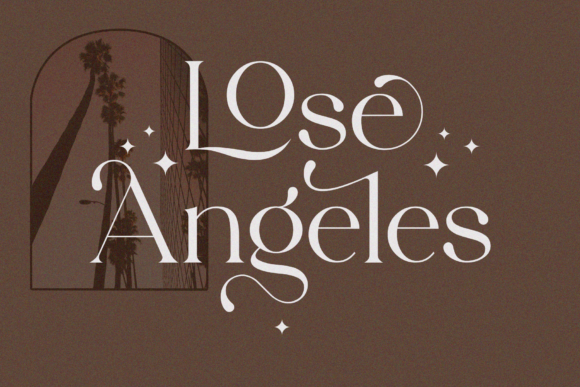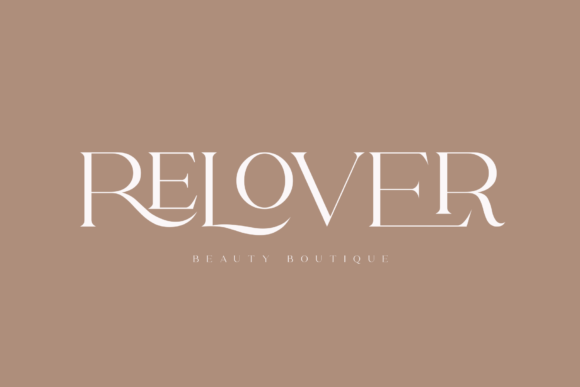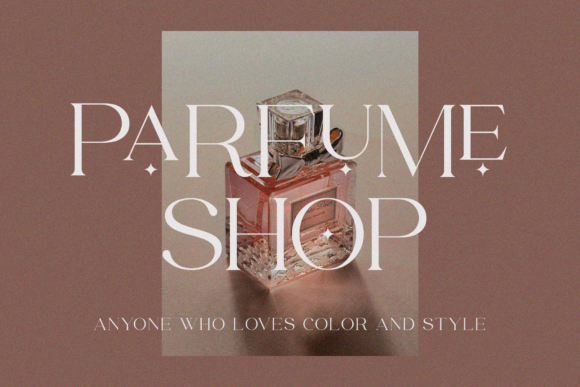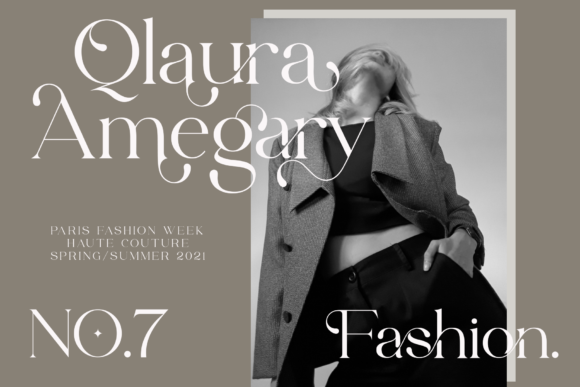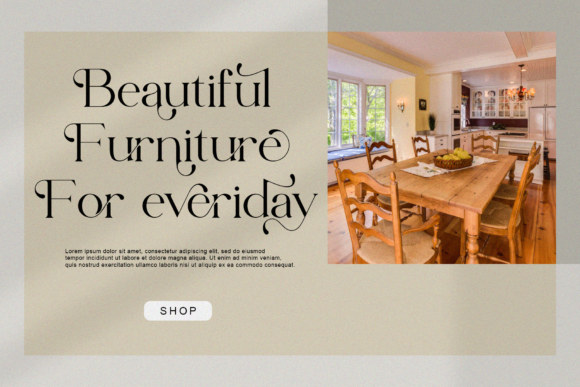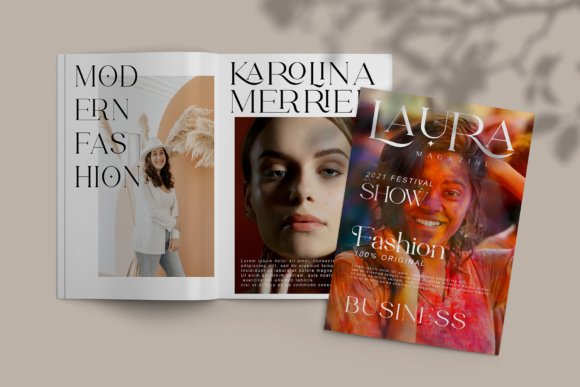
Introduction to Edhan Martine Font
Edhan Martine is a unique and elegant serif font especially created for brand and logo designs.
Its stylish characters and modern style can take any creative idea to the highest level This font is PUA encoded which means you can access all of the glyphs and swashes with ease.
Edhan Martine Font offers exceptional quality and versatility, making it a valuable addition to your design toolkit. Whether you’re creating for personal projects or commercial use, Edhan Martine Font delivers professional results.